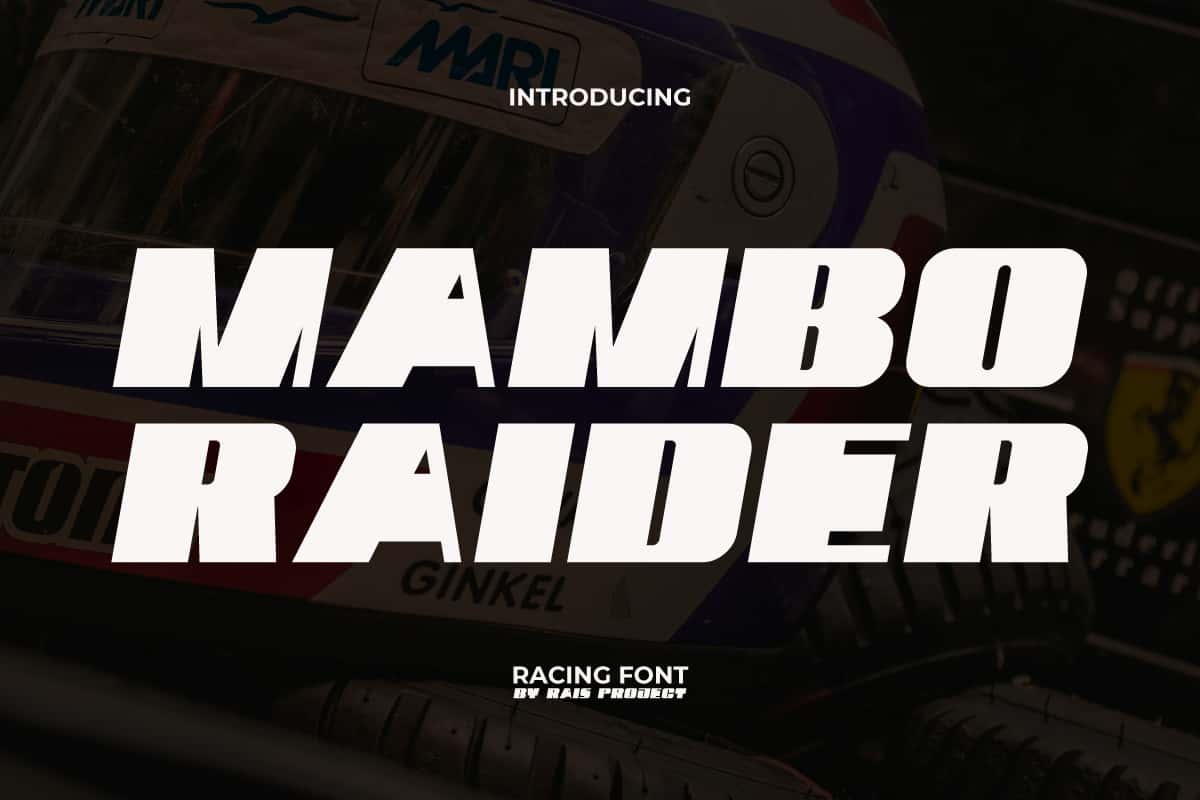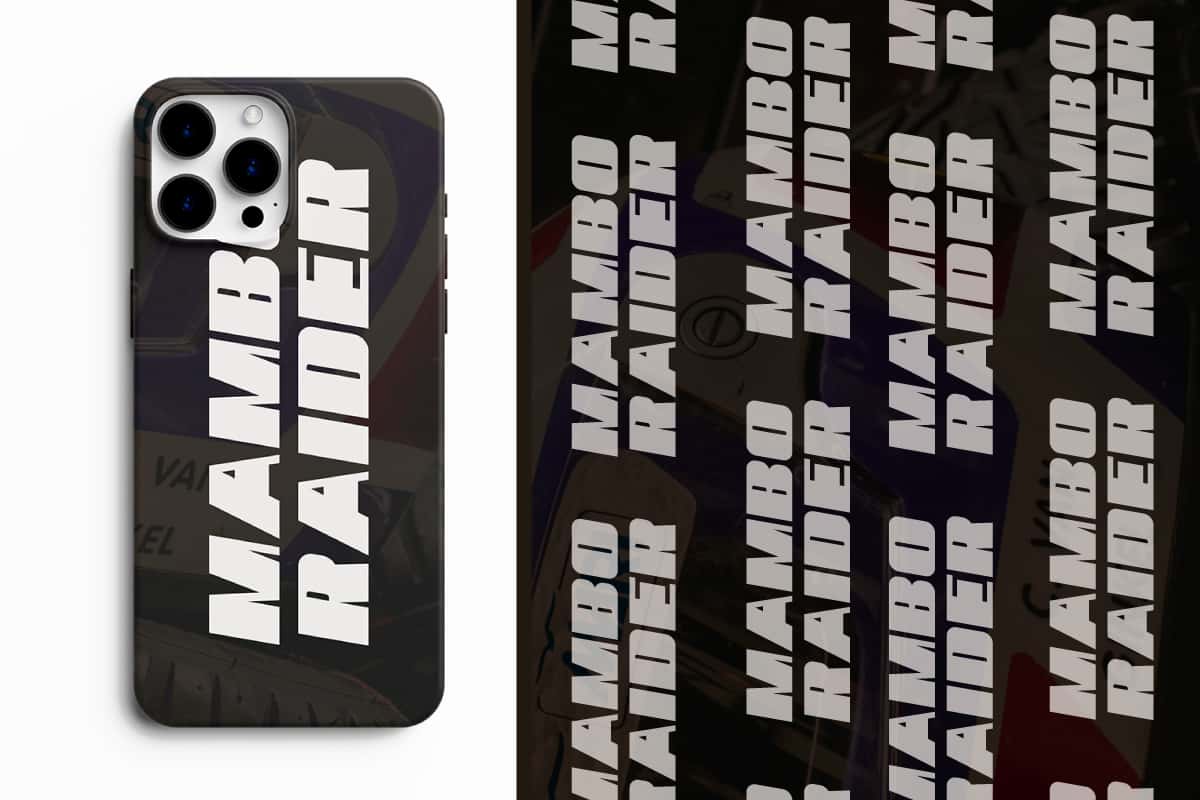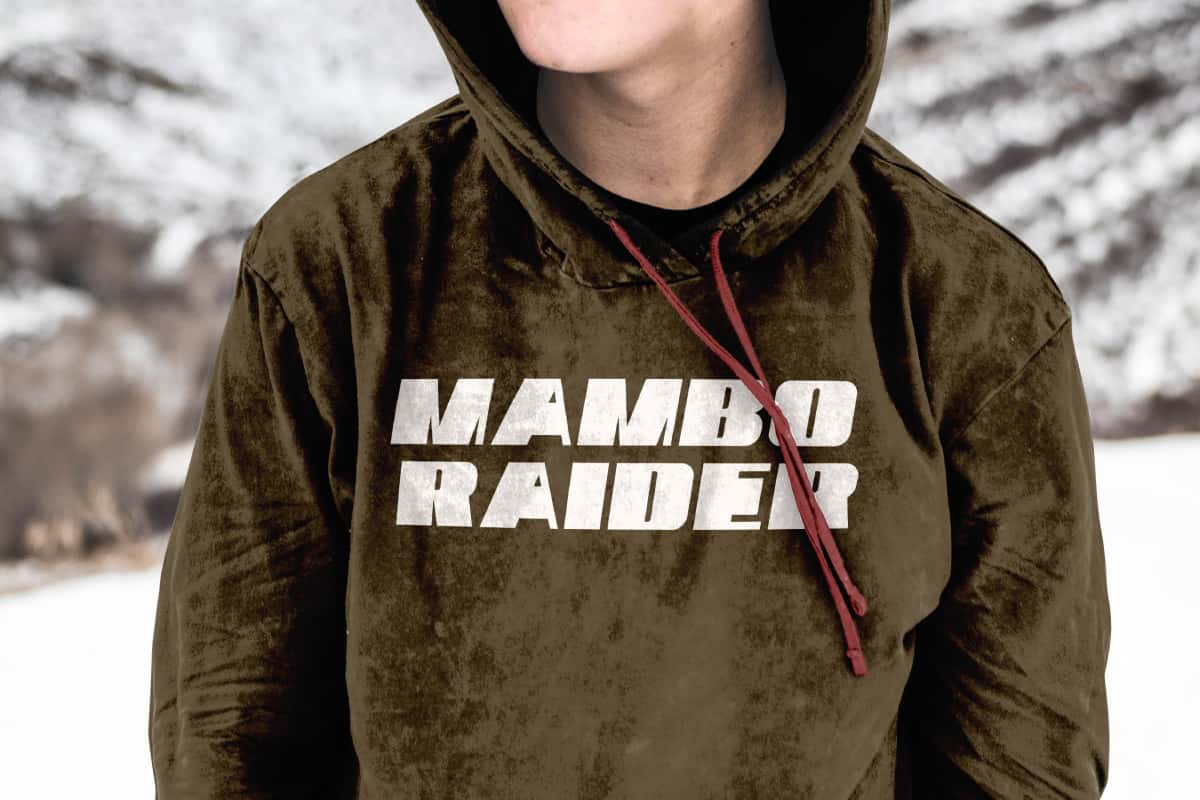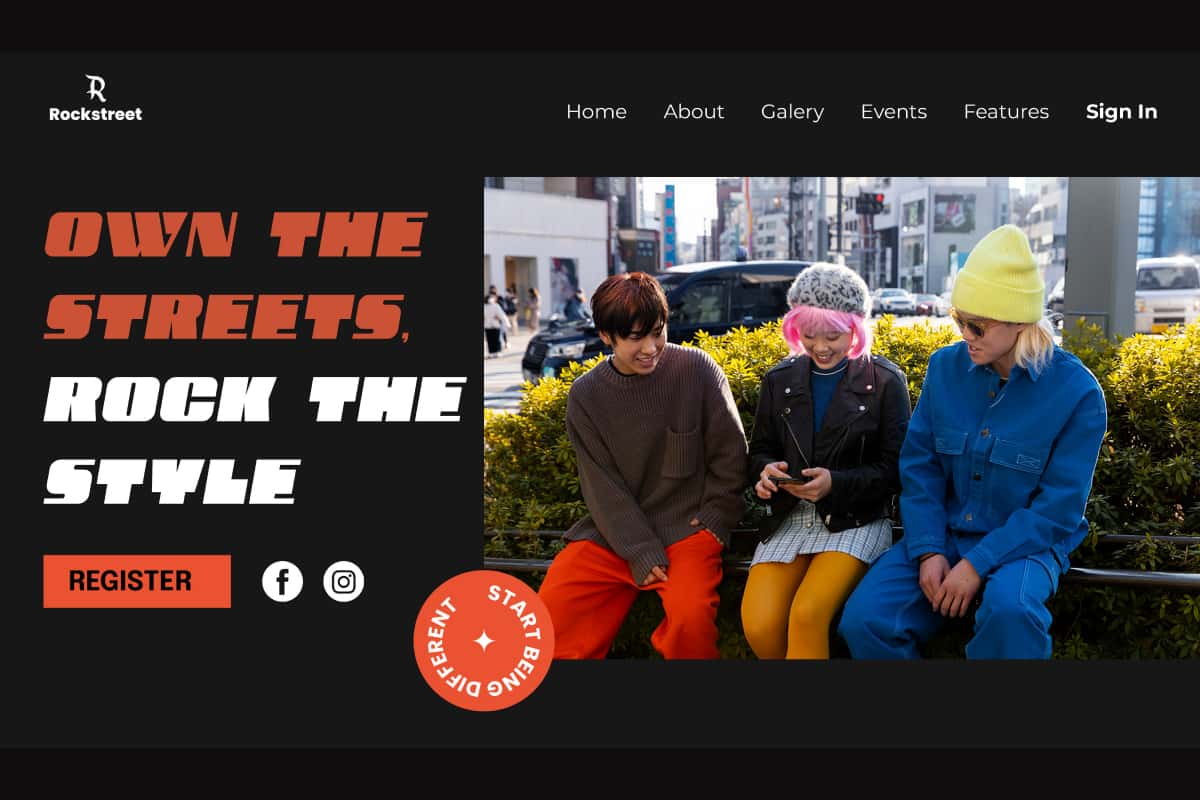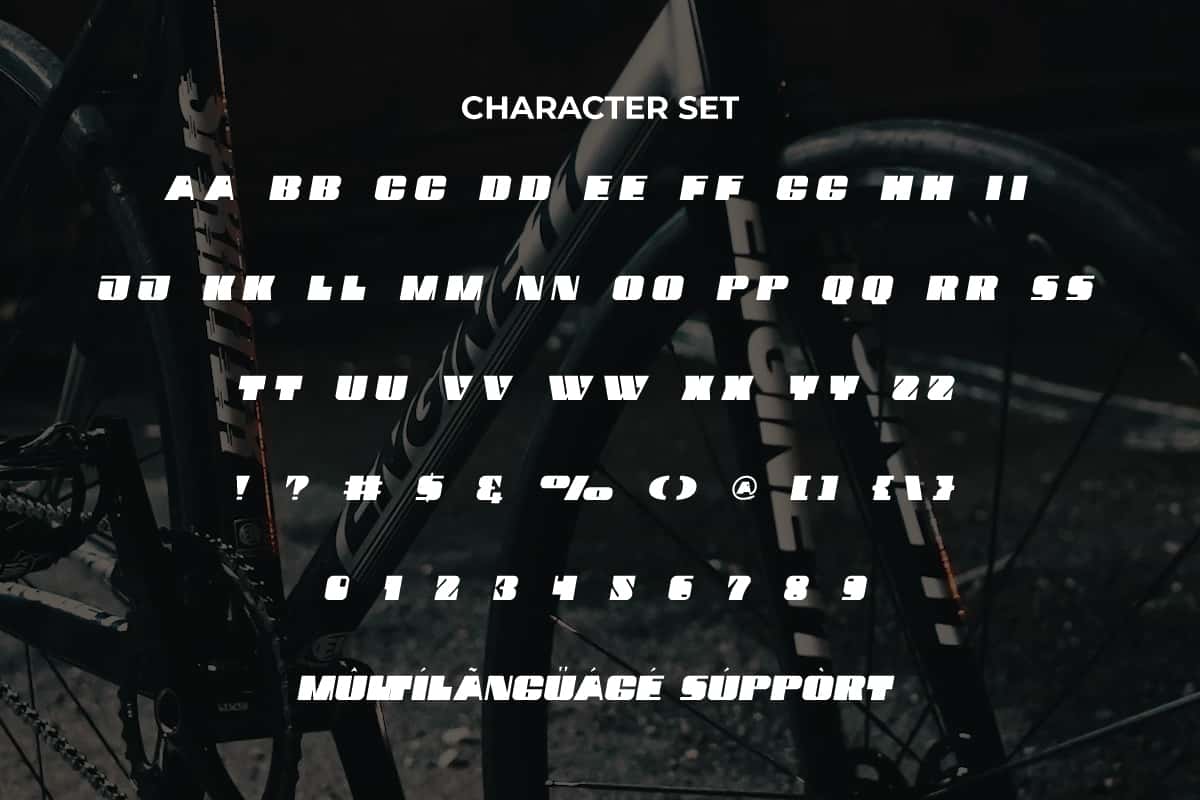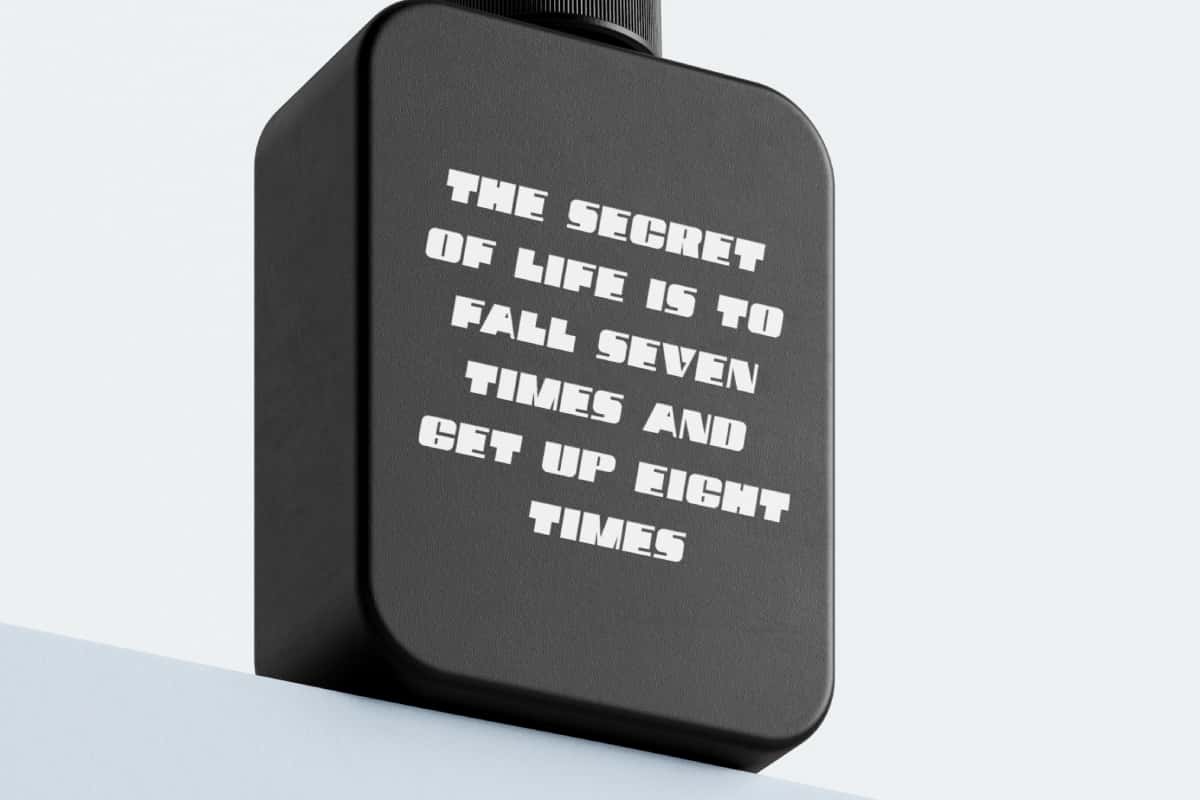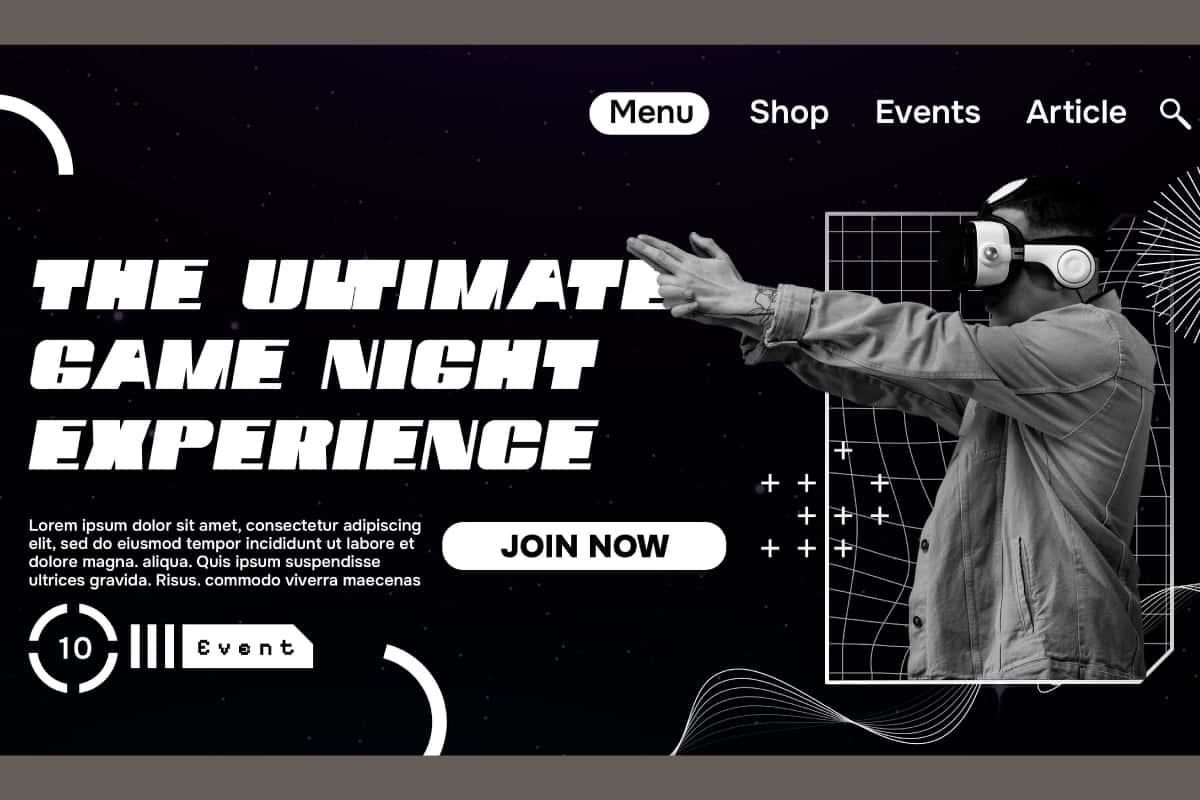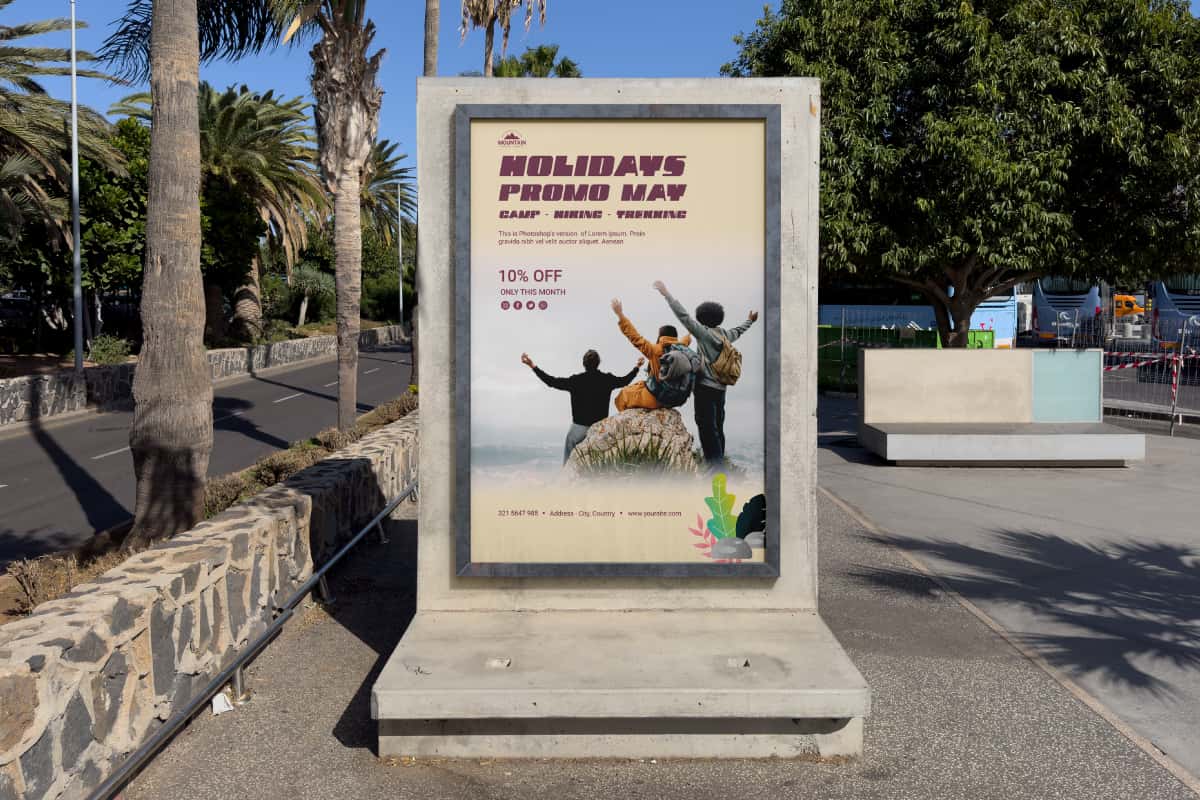
Mambo Raider Font is a bold racing display font to make your designs standout. The style of this font display is suitable for main text in a design because it stands out and is easy to read. It will be great for custom design, stationery, product packaging, quotes, brand image, advertisement, invitation, marketing material, website page, and more! You can see the demo font below, input any word you want so you can see what it looks like: